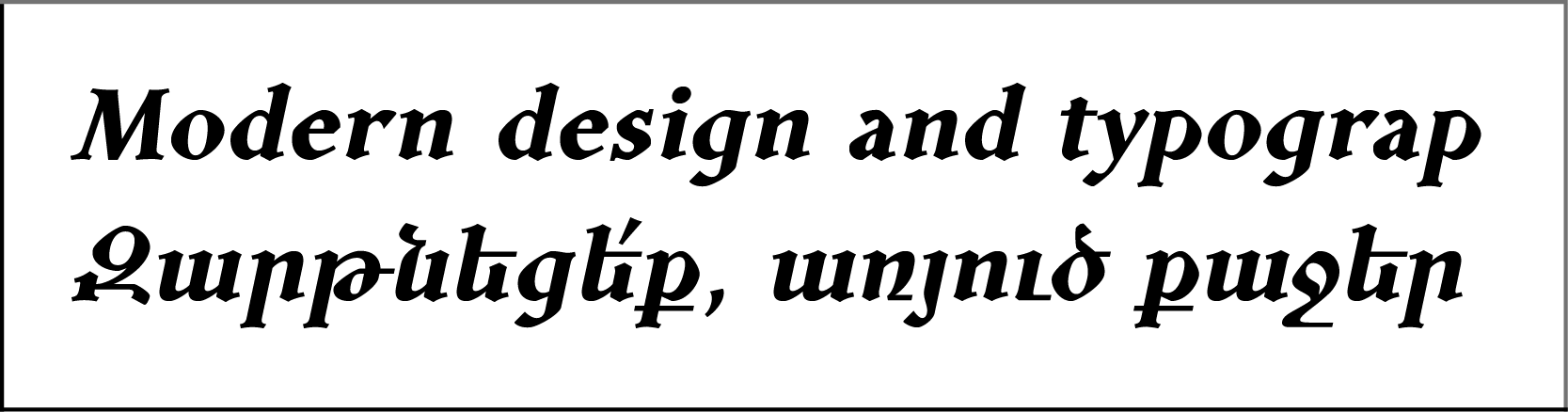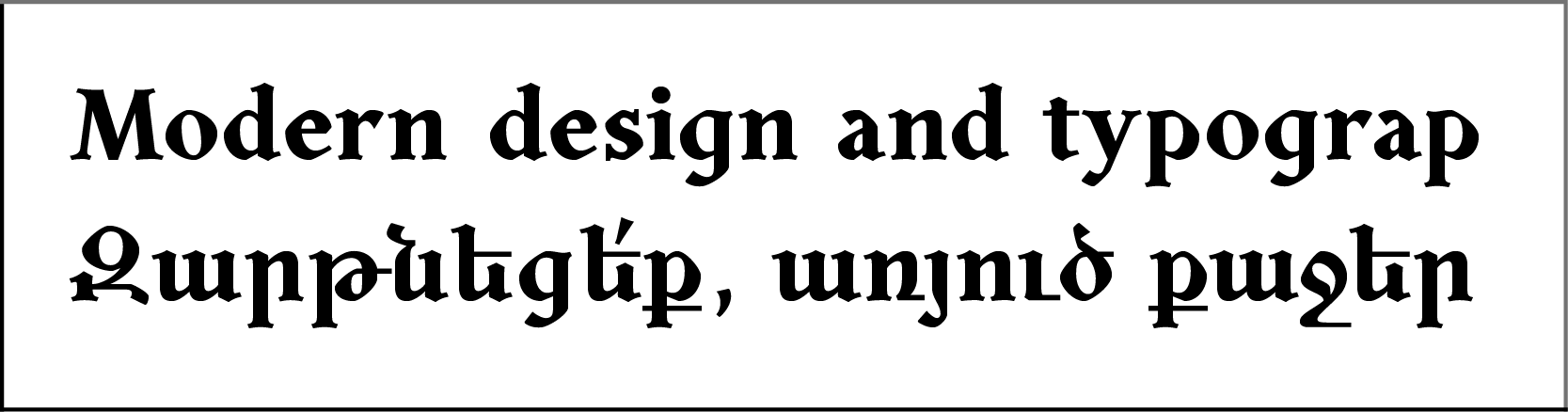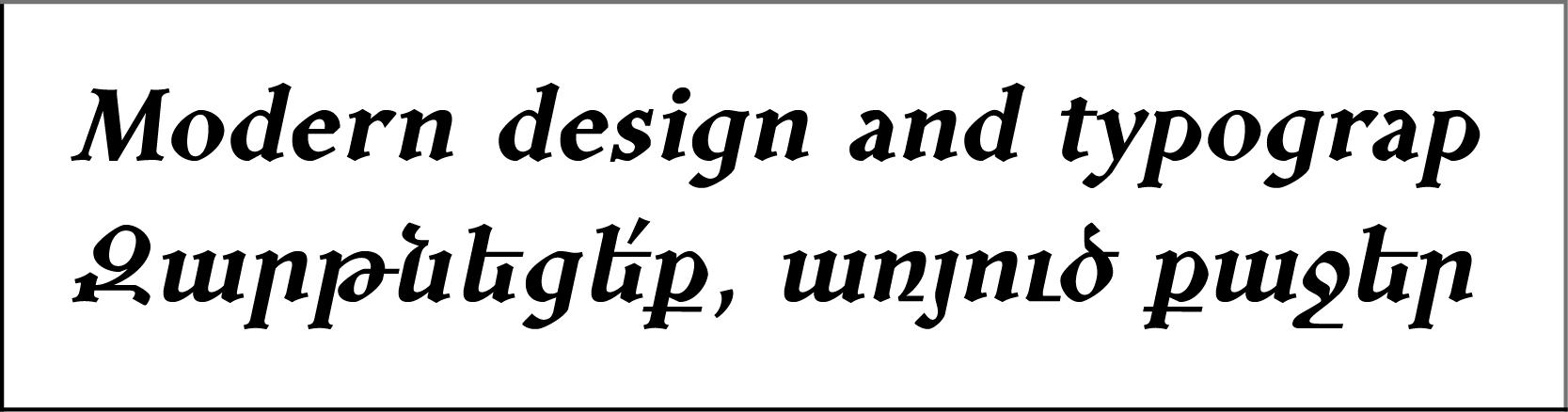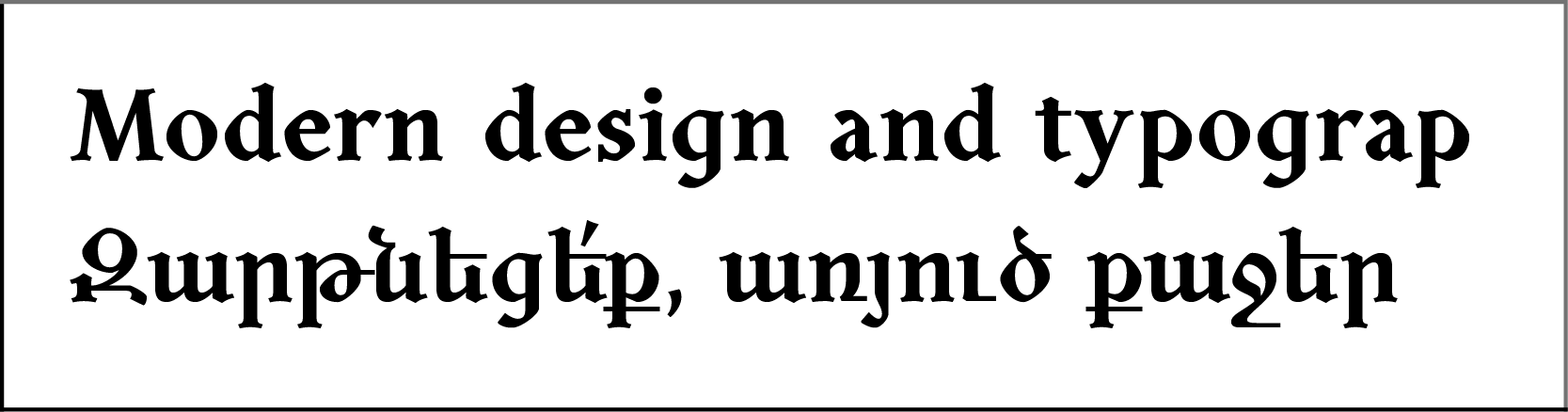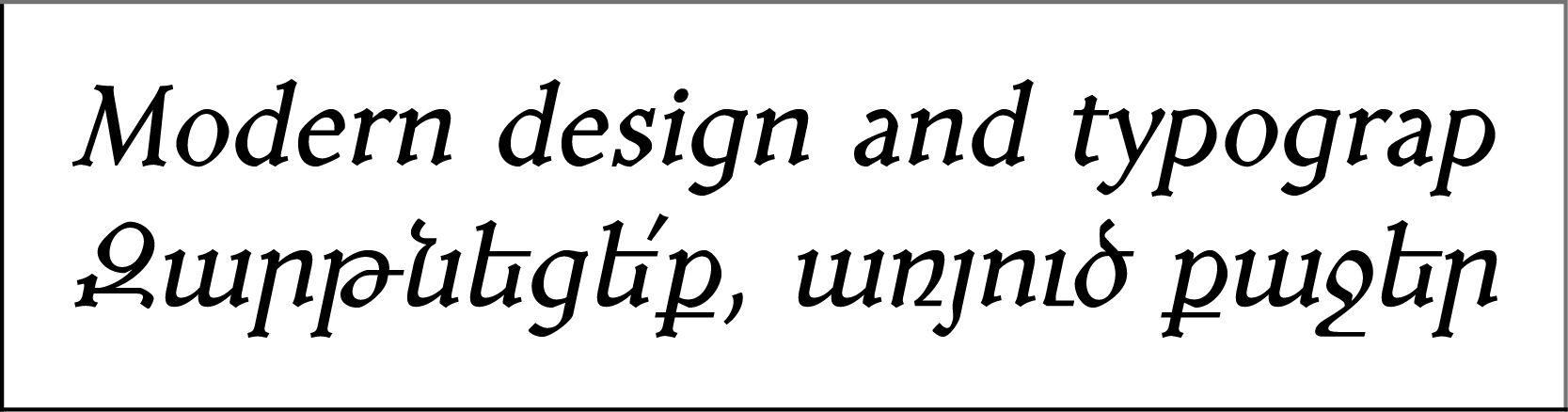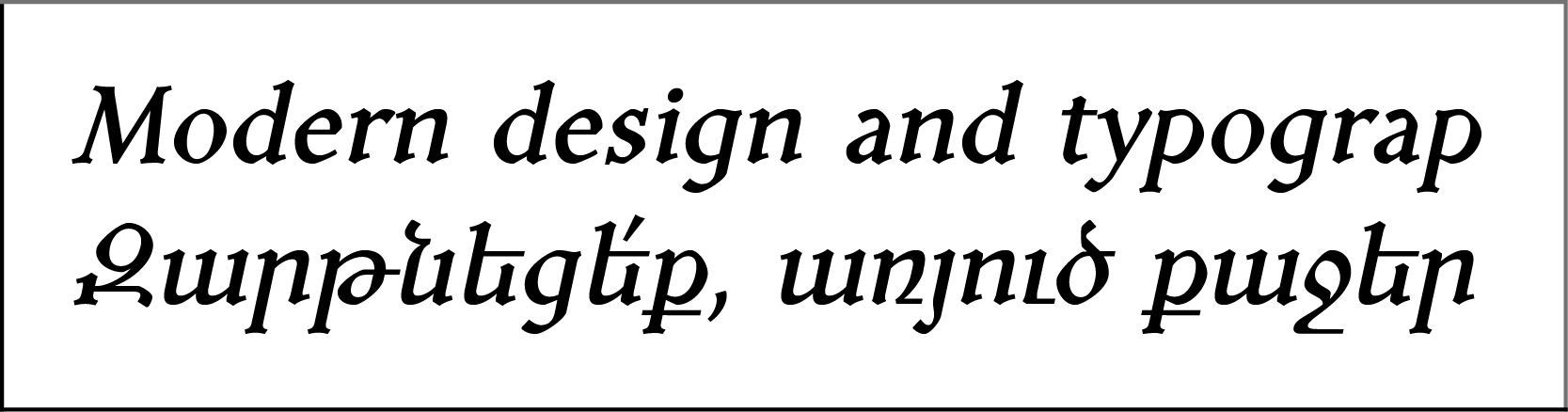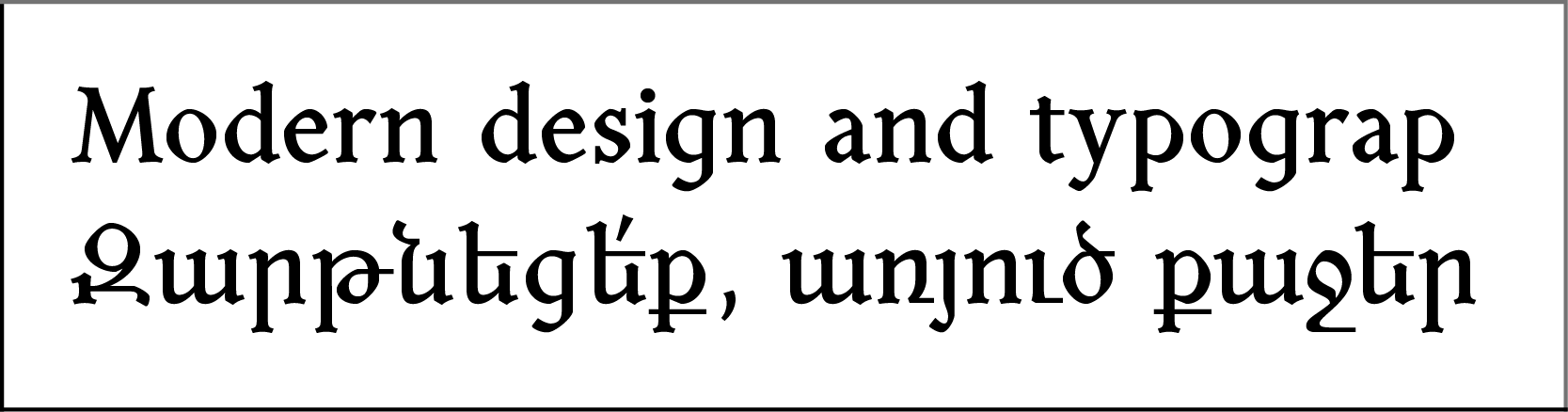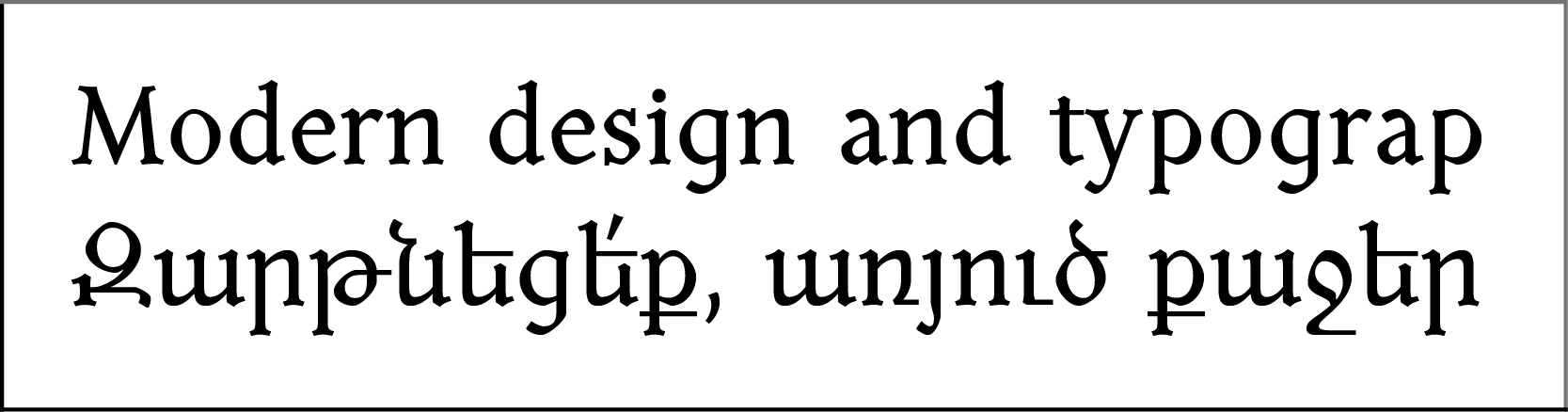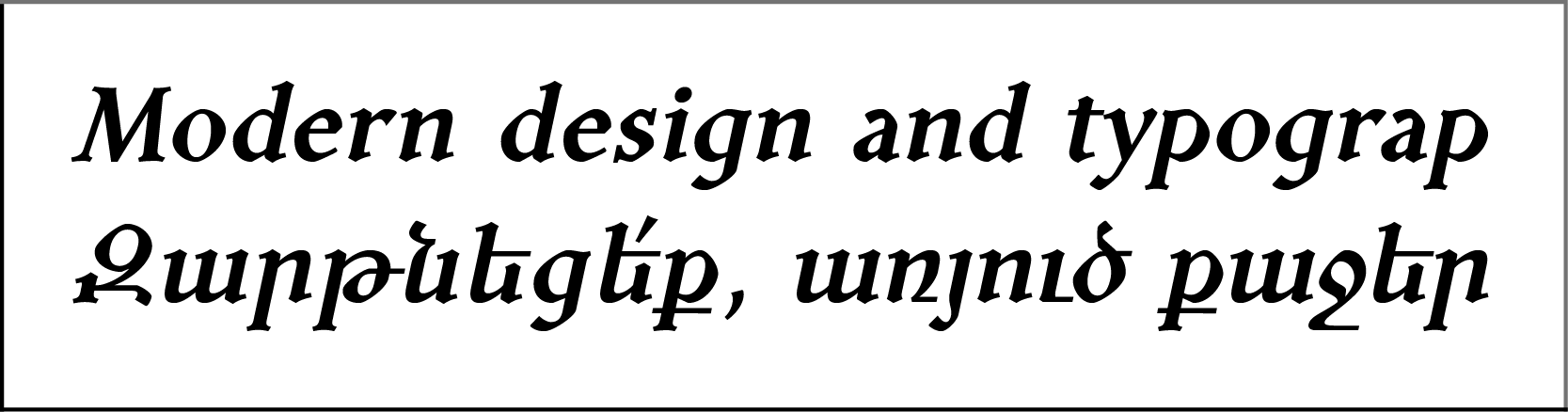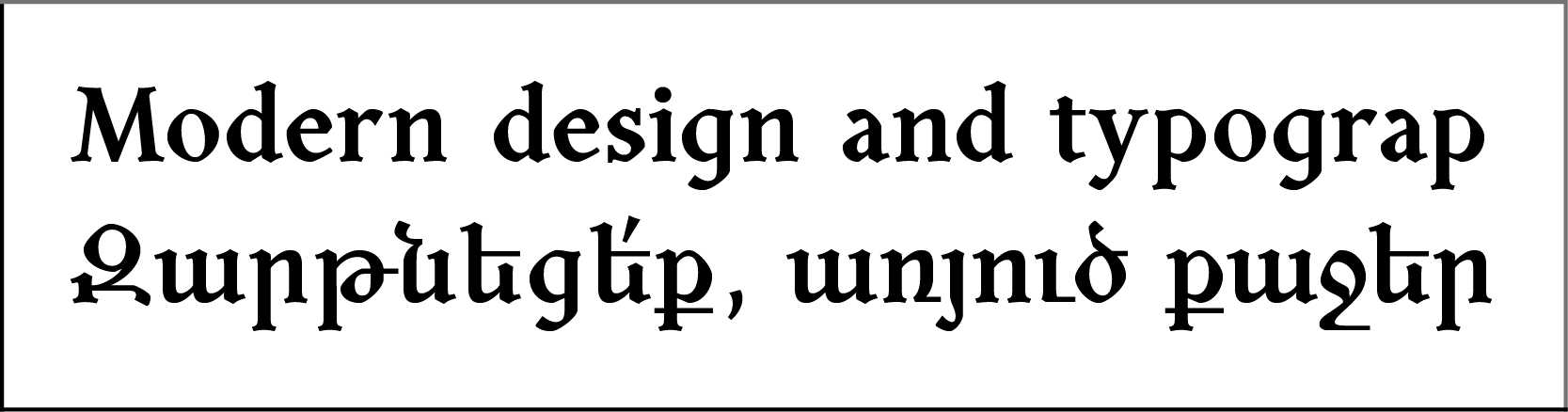
HASH Anush
Designer: Hrachuhi Grigoryan
Design date: 2016
The Gothic style serif font family includes: Armenian and Latin alphabet systems. It has 10 weights:   Regular, Italic, Medium, Medium Italic, SemiBold, SemiBold Italic, DemiBold, DemiBold Italic, Bold, Bold Italic.
To be used in texts, posters, and titles.